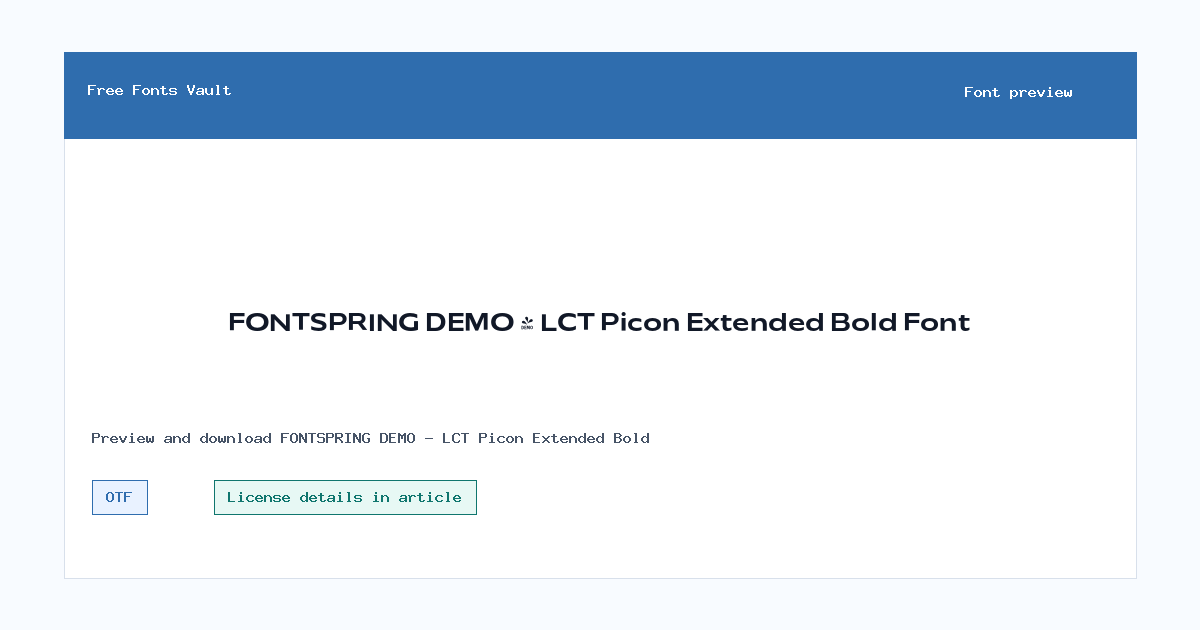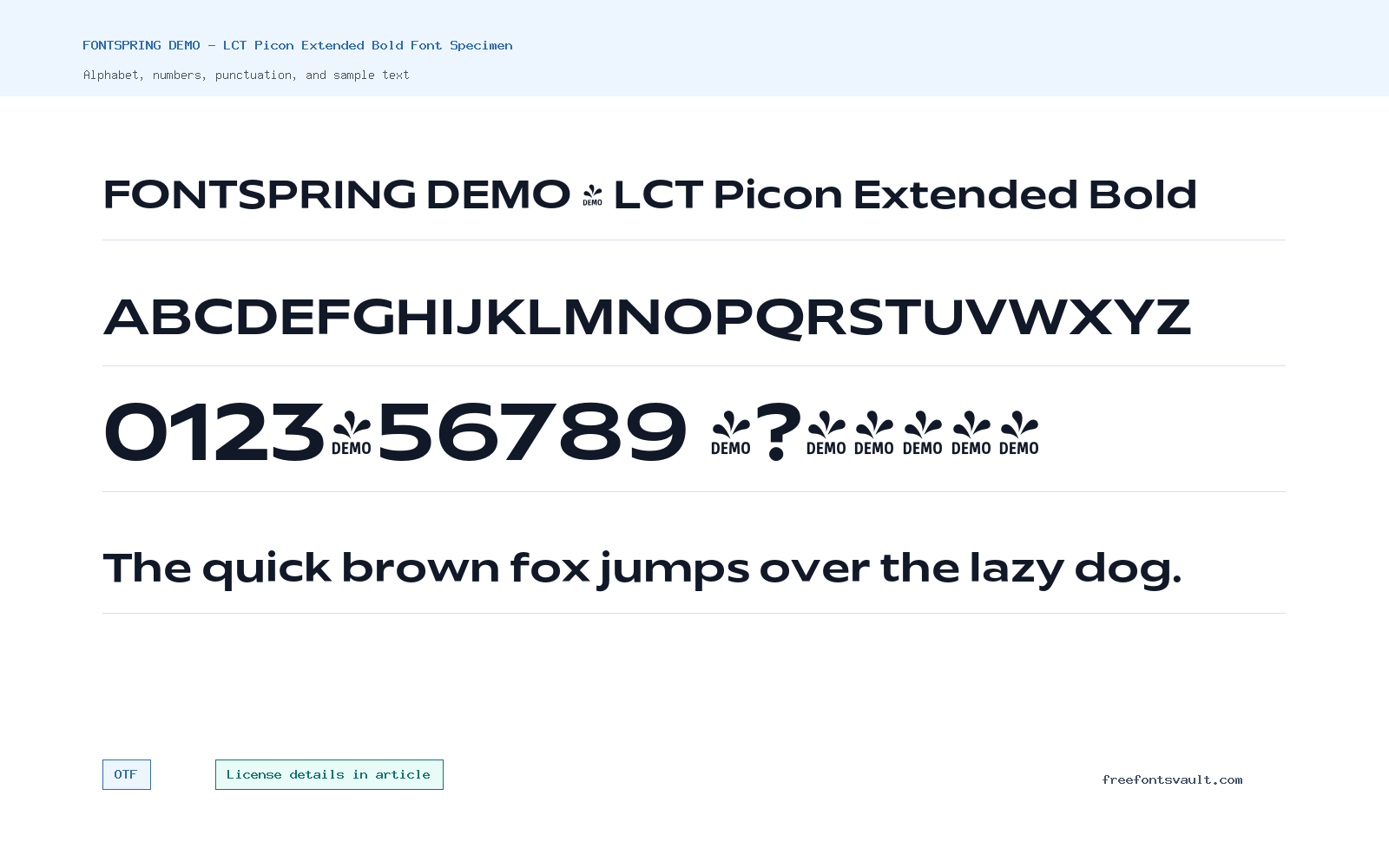
FONTSPRING DEMO - LCT Picon Extended Bold
- Designer Quentin J. Stavinsky
- Foundry LCT |Atelier La Casse
LCT Picon Extended Bold Fontspring Demo is a bold, wide display font in OTF format. Its extended width and heavy weight make it better suited to short, attention-focused text than long paragraphs.
About LCT Picon Extended Bold Fontspring Demo
LCT Picon Extended Bold Fontspring Demo uses a normal style with a 700 weight, giving it a strong headline presence. The extended proportions help words feel broad and stable, so it can work well when a design needs a compact line of text to carry visual weight.
LCT Picon Extended Bold is best tested in wide, confident settings where an extended bold style can stand out. Try headlines, navigation labels, poster titles, packaging mockups, and short brand phrases. If the width starts to crowd the layout, reduce the number of words before making the type too small.
- Bold 700 weight with extended letter width
- Headlines, title cards, and short display text
- Posters, banners, labels, and bold web graphics
Designer: Quentin J. Stavinsky. Foundry: LCT |Atelier La Casse.
Is LCT Picon Extended Bold Fontspring Demo good for body text?
It is better for short display text. The bold weight and extended width may feel too heavy for long paragraphs or small sizes.
Who designed LCT Picon Extended Bold Fontspring Demo?
The font information names Quentin J. Stavinsky as the designer and LCT |Atelier La Casse as the foundry.